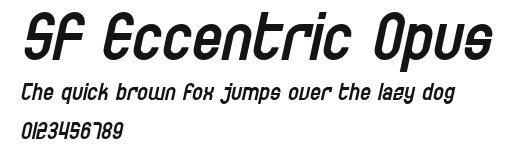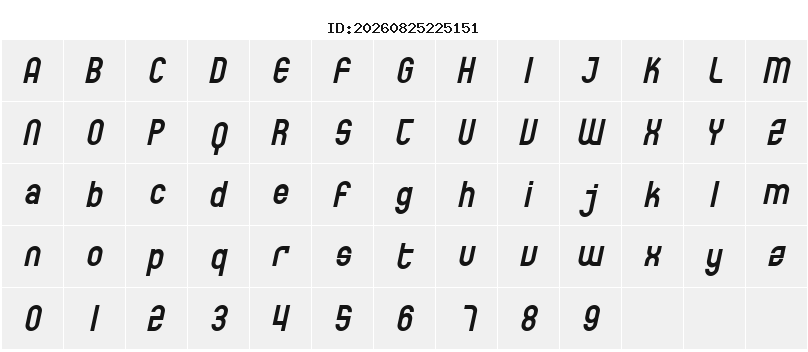
SF Eccentric Opus Preview
• Font Name: SF Eccentric Opus
• Font Style: Bold Oblique
• Font ID: SF Eccentric Opus Bold Oblique
• Full Font Name: SF Eccentric Opus Bold Oblique
• PostScript Name: SFEccentricOpus-BoldOblique
• Character Count: 224
About SF Eccentric Opus.ttf
SF Eccentric Opus.ttf is a modern, elegant sans-serif font designed for ultimate readability and visual harmony. Perfect for branding, headlines, web design, and print materials.